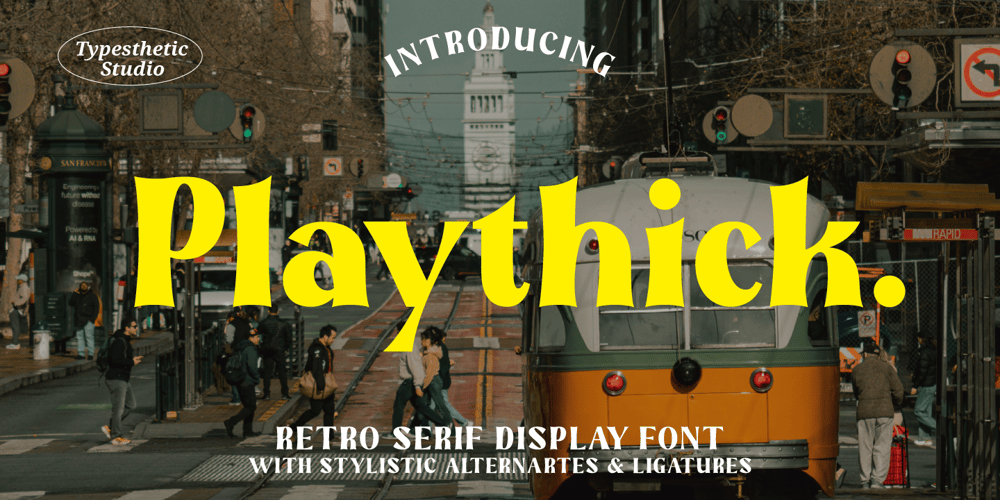
Playthick
Playthick font
Playthick Font Family was designed by Hamzah Muhamad Ihsan and published by Typesthetic Studio. Playthick contains 1 styles and family package options. Playthick is a stunning display serif font with stylish and modern look alternates. Playthick font perfect for logos, website, magazine cover, watermark, cards, quotes, photography and product packaging. This font includes 160 alternates and ligature also full set of uppercase and lowercase letters, multilingual symbols, numerals and punctuation. This font is PUA encoded, which means you can access all of the glyphs and swashes with ease!